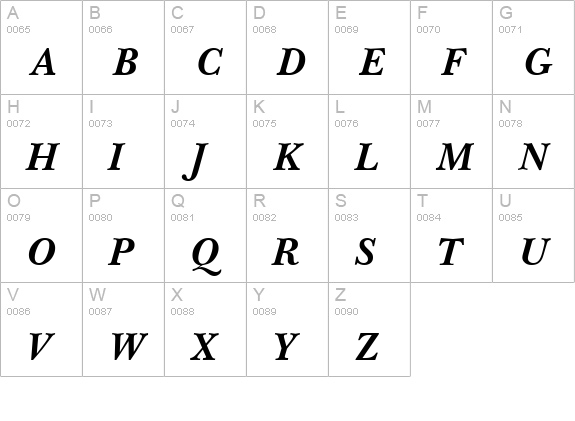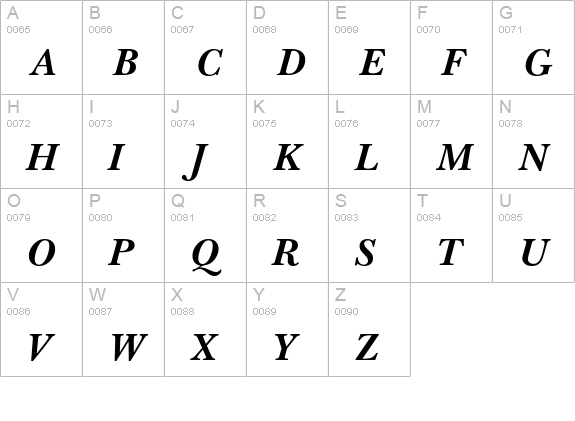
TR Baez Bold Italic Font Details
TR Baez Bold Italic is a strong, high-contrast, italic variant in the TR typeface family \xE2\x80\x94 well suited to headlines, attention-grabbing titles, and strong calls-to-action.
TR Baez Bold Italic font is a striking and modern typeface that exudes elegance and sophistication. With its bold and slanted design, this font is perfect for adding a touch of drama to your designs. The sleek curves and sharp angles of TR Baez Bold Italic make it a versatile choice for a variety of projects, from branding to editorial design. This font is available for free download at FontsMarket.com, making it easily accessible to designers and creatives looking to enhance their work with a unique and eye-catching typeface. Whether you're designing a logo, poster, or website, TR Baez Bold Italic will make a bold statement and leave a lasting impression on your audience. Elevate your designs with this free and stylish font today!